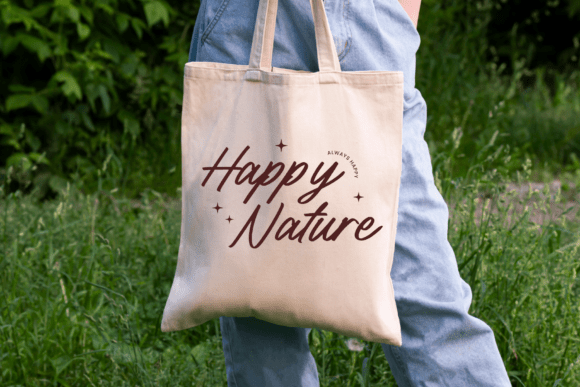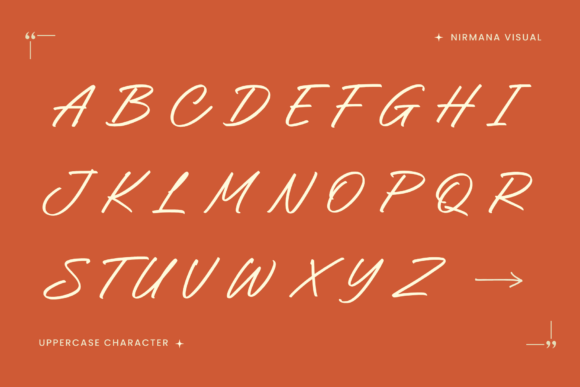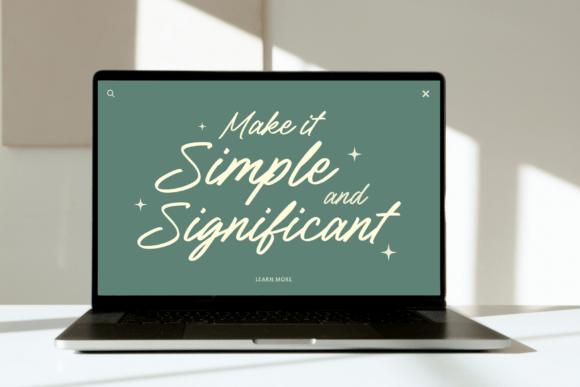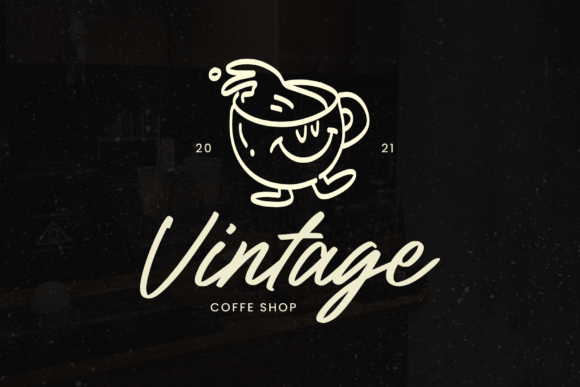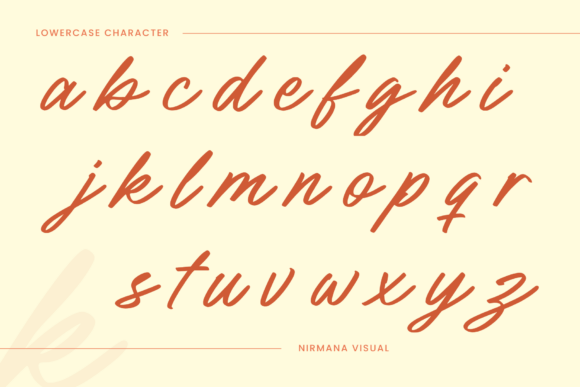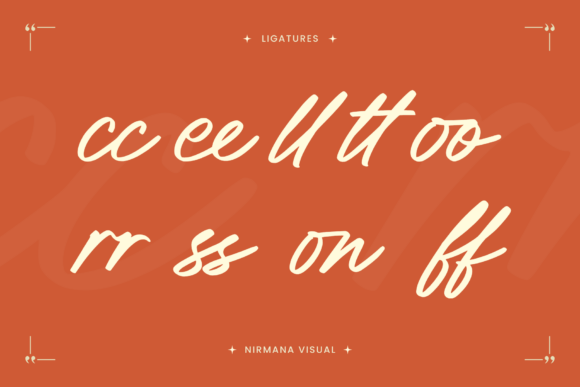
Introducing Ganola Font: Elevate Your Brand with Vintage Elegance
In the world of typography, fonts play a crucial role in shaping brand identities. For designers and crafters seeking a unique and sophisticated aesthetic, Ganola Font is an exceptional choice. This hand-lettering font embodies a vintage script style with a stylish, flowing brush line, making it perfect for businesses aiming to convey a classic yet modern appeal.
The Essence of Ganola Font
Ganola is more than just a font – it’s a statement piece. Designed specifically for logo and branding applications, it offers an elegant yet bold aesthetic that instantly elevates brand presence. The fluid strokes and retro charm of Ganola add warmth and personality to any design, making it an excellent choice for businesses looking to establish a strong brand identity.
Key Features of Ganola Font
• Vintage Script Style: Ganola’s roots lie in traditional script typography, offering a nostalgic feel that’s perfect for brands aiming to evoke a sense of heritage or timelessness.
• Stylish, Flowing Brush Line: The font’s handcrafted nature gives it a unique, organic look that’s both stylish and approachable.
• Elegant yet Bold Aesthetic: Ganola strikes the perfect balance between elegance and boldness, making it versatile for various design applications.
• Handcrafted Authenticity: Each letterform is carefully crafted, providing a genuine, hand-lettered feel that sets it apart from digital fonts.
Applications of Ganola Font
Ganola’s versatility makes it suitable for a wide range of design applications. Here are some of the ways you can use Ganola to enhance your brand:
• Logo Design: Create a lasting impression with a logo that exudes sophistication and elegance.
• Branding: Consistency is key in branding. Ganola can help you maintain a cohesive visual identity across all your marketing materials.
• Packaging: Stand out on store shelves with packaging that features a unique and captivating font.
• Signage: Whether for indoor or outdoor use, Ganola can help your signage make a bold statement.
• Merchandise: From business cards to t-shirts, Ganola can add a touch of class and personality to your merchandise.
Why Choose Ganola Font?
In a sea of digital fonts, Ganola stands out for several reasons:
• Timeless Appeal: Unlike trendy fonts that may quickly become outdated, Ganola’s classic style ensures it remains relevant for years to come.
• Versatility: Its elegant yet bold aesthetic makes it suitable for a variety of design applications and industries.
• Authenticity: Ganola’s handcrafted nature gives it an authentic feel that’s hard to replicate with machine-generated fonts.
Tips for Using Ganola Font Effectively
To get the most out of Ganola, consider the following tips:
• Pair with Complementary Fonts: For maximum impact, pair Ganola with fonts that complement its vintage and elegant style.
• Adjust Letter Spacing: Experiment with letter spacing to achieve the perfect balance and flow for your design.
• Consider Color Choices: Select colors that enhance Ganola’s classic appeal, such as rich tones or metallic finishes.
Ganola Font is a sophisticated hand-lettering font that brings a touch of vintage elegance to any design. Its stylish, flowing brush line and bold aesthetic make it perfect for businesses seeking to establish a classic yet modern brand identity. With its fluid strokes, retro charm, and handcrafted authenticity, Ganola delivers a timeless and artistic touch that’s sure to elevate your brand. Whether for logo design, branding, packaging, signage, or merchandise, Ganola is an excellent choice for designers and crafters looking to add warmth and personality to their creations.